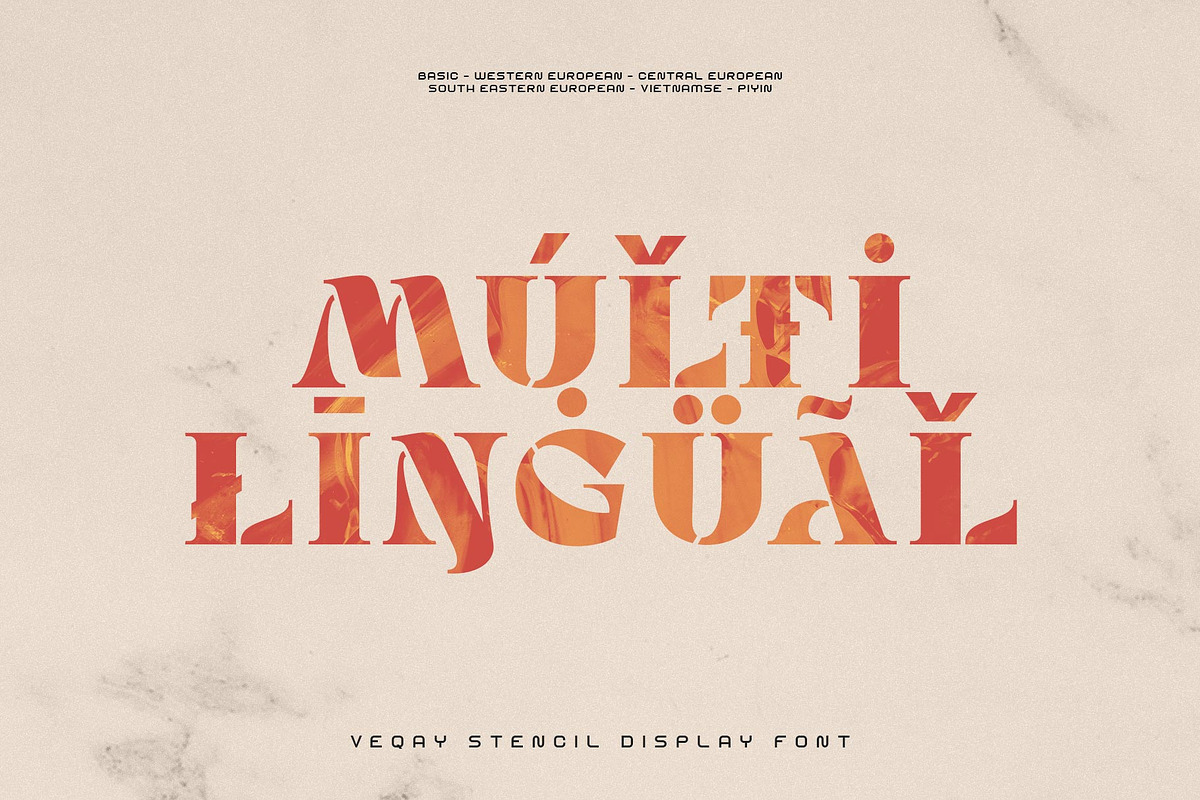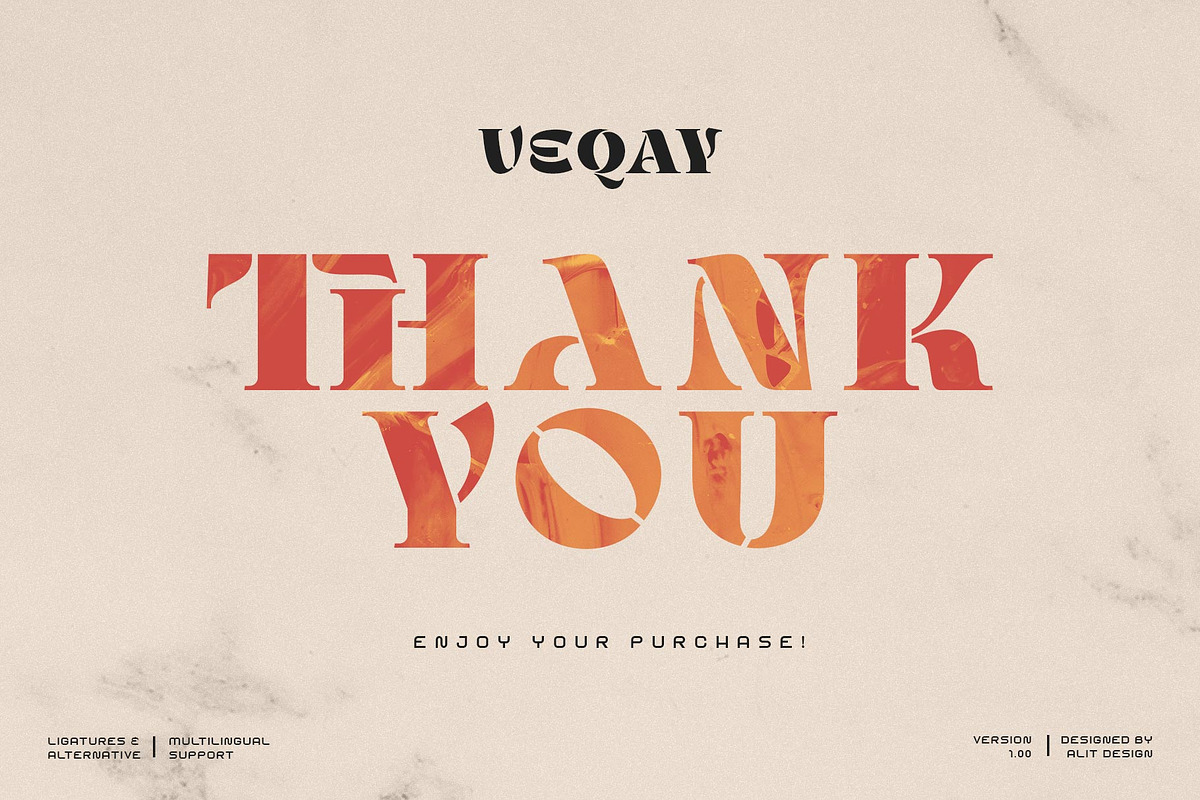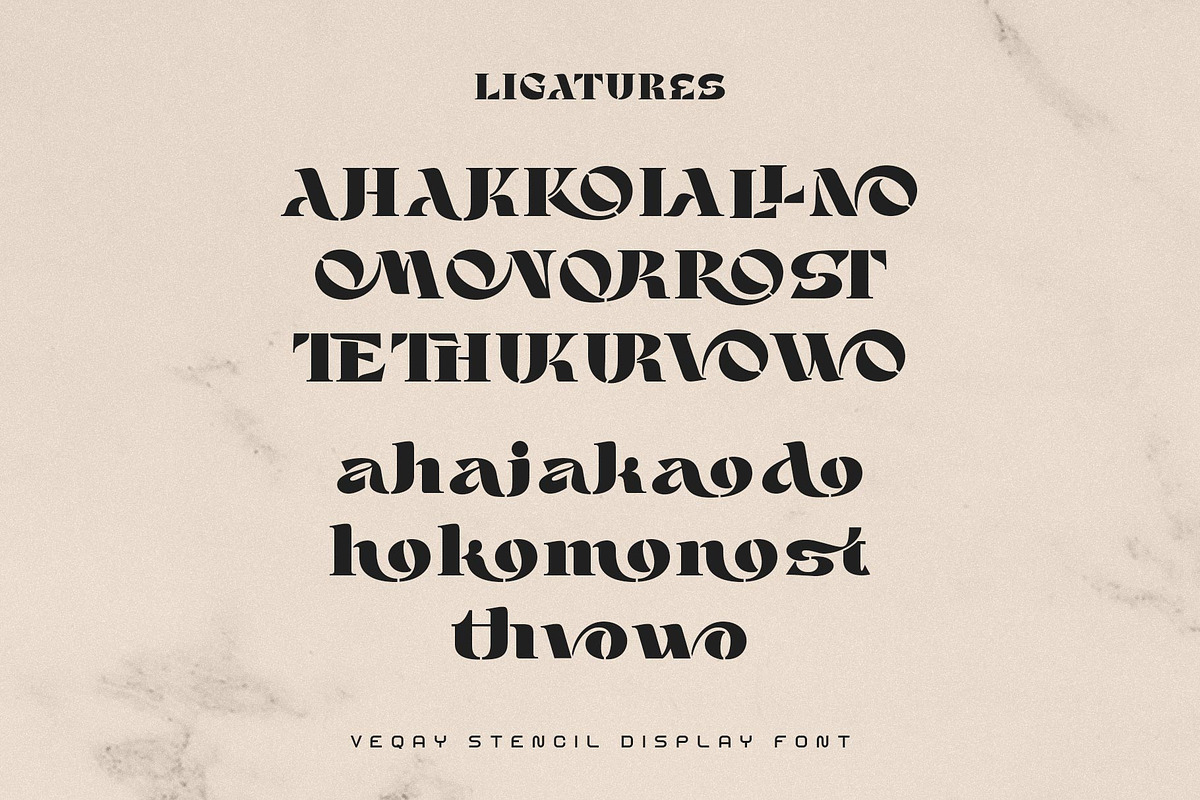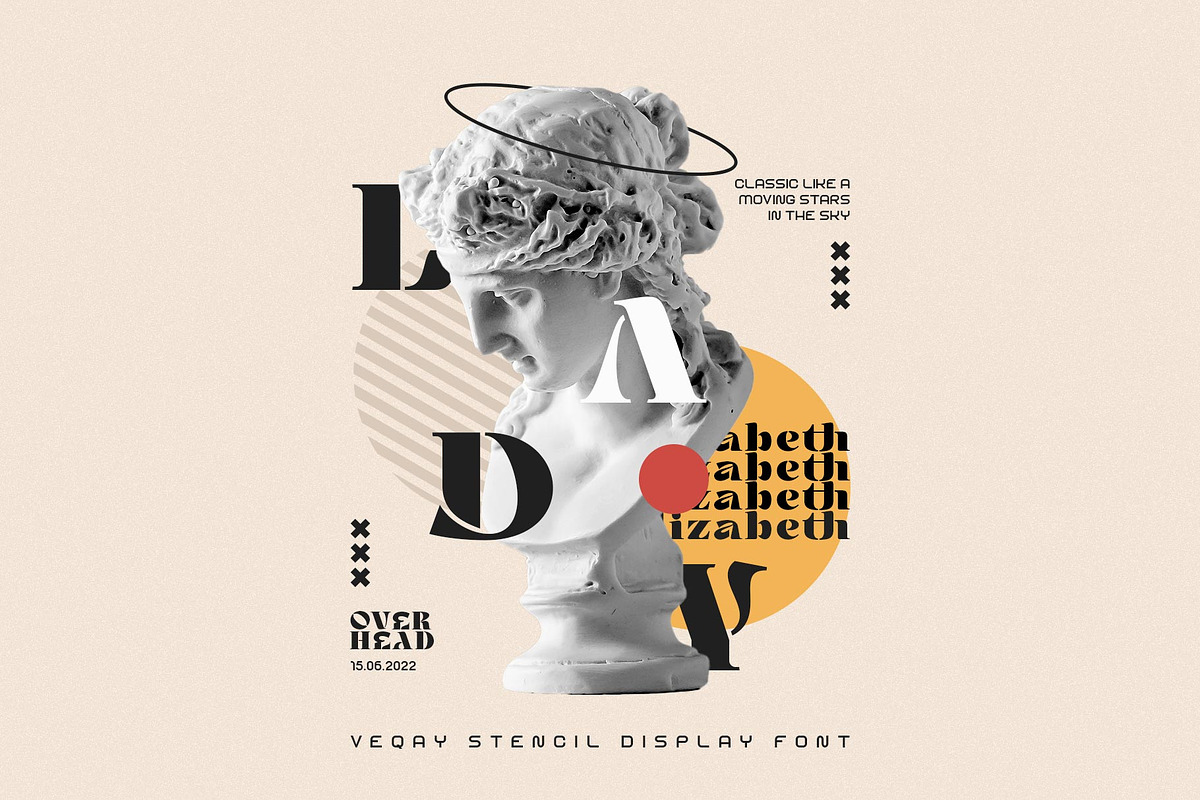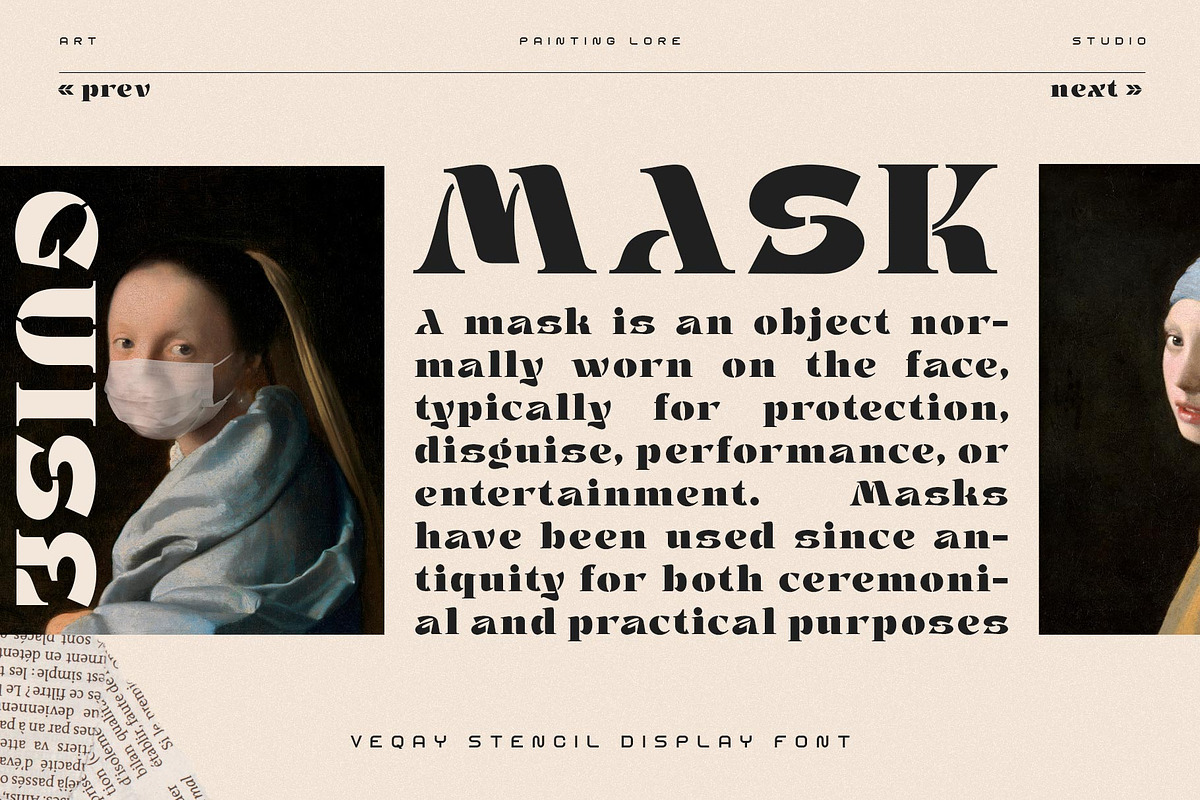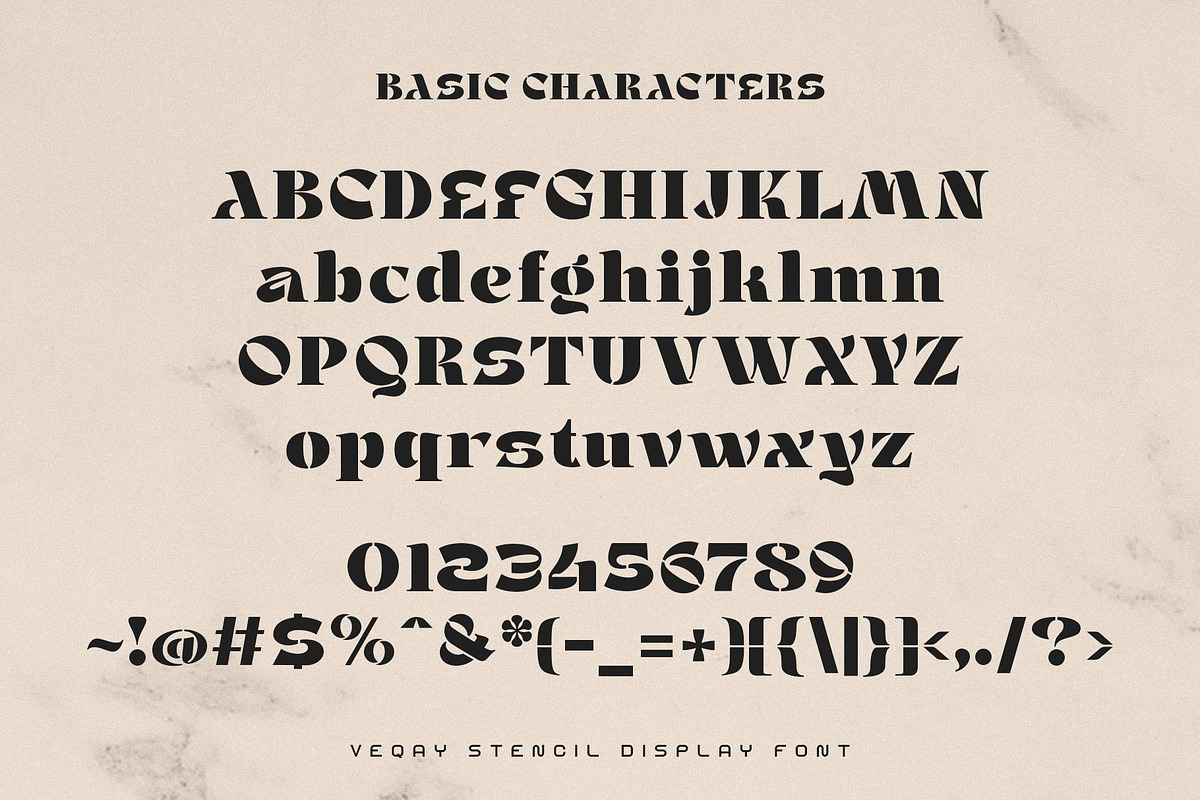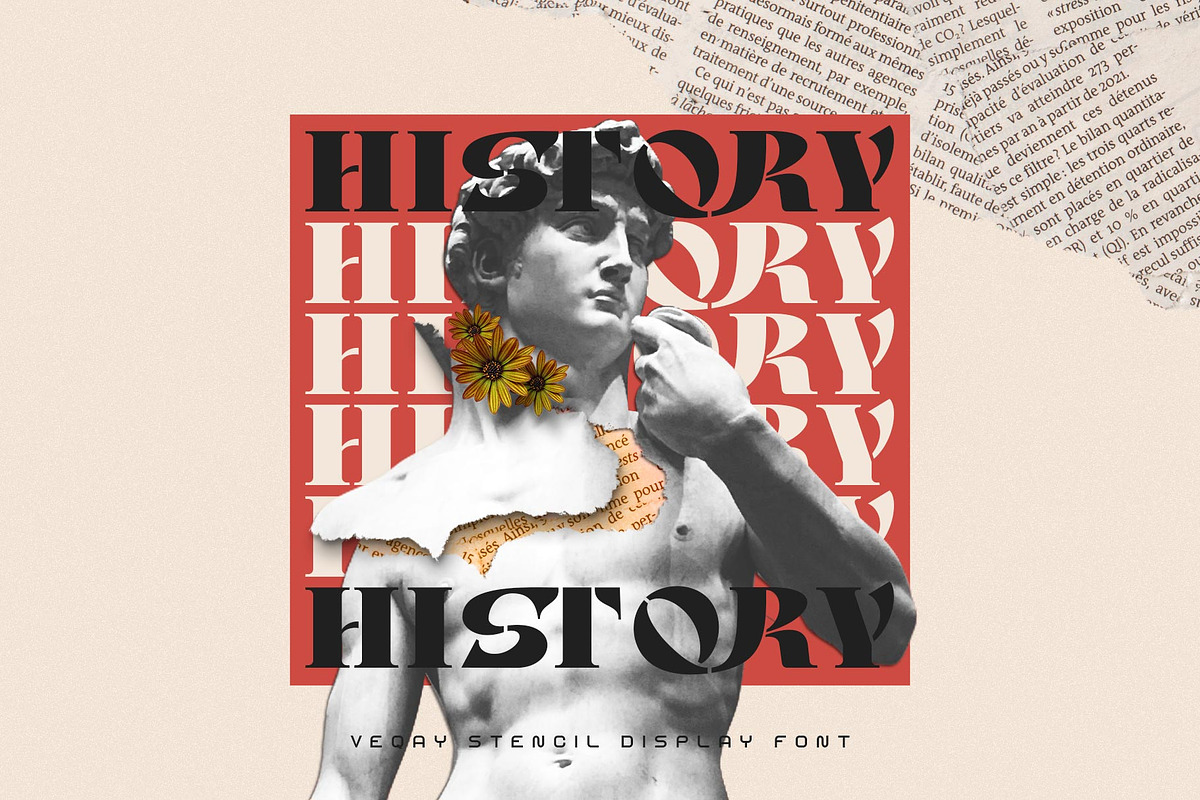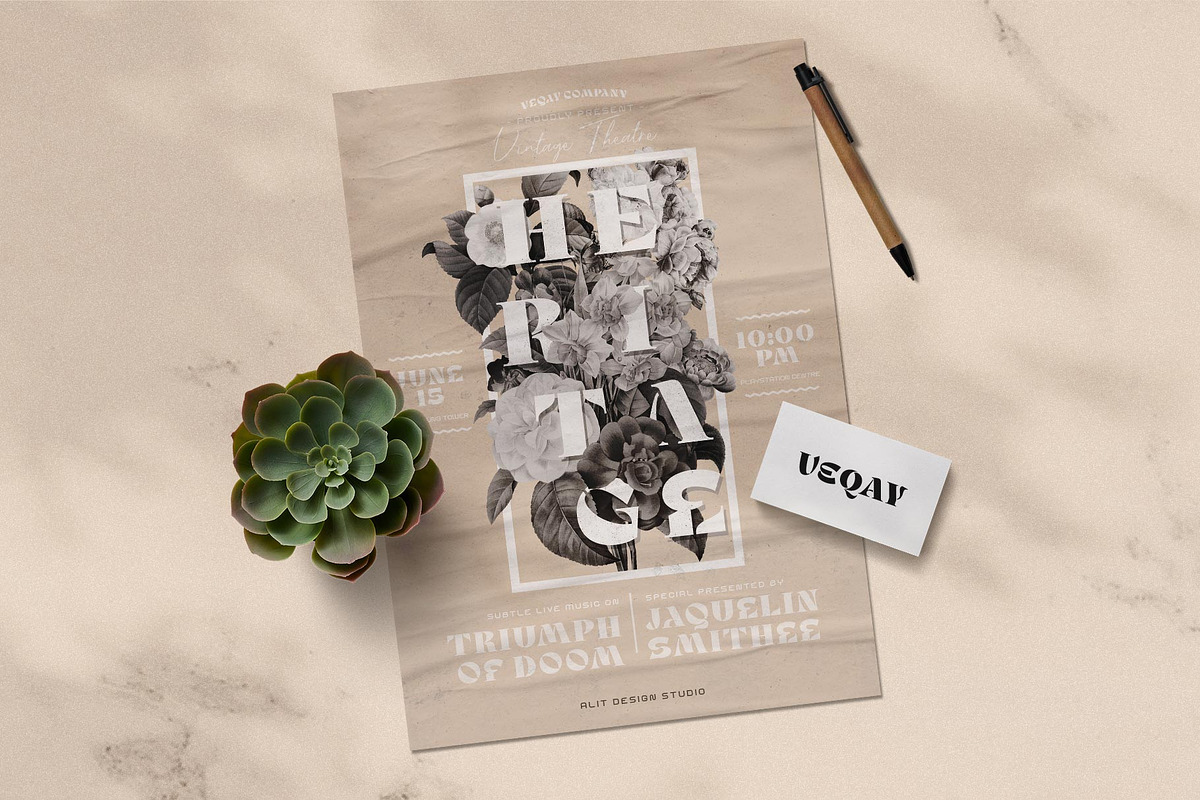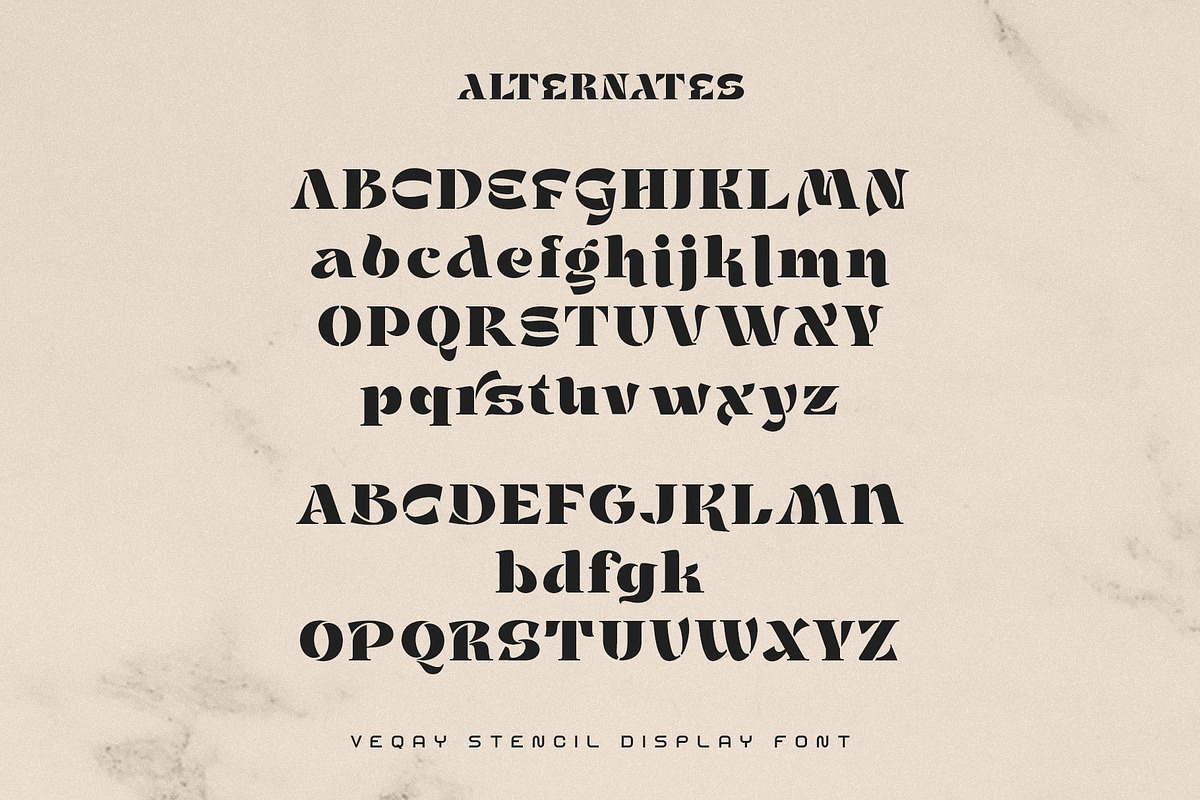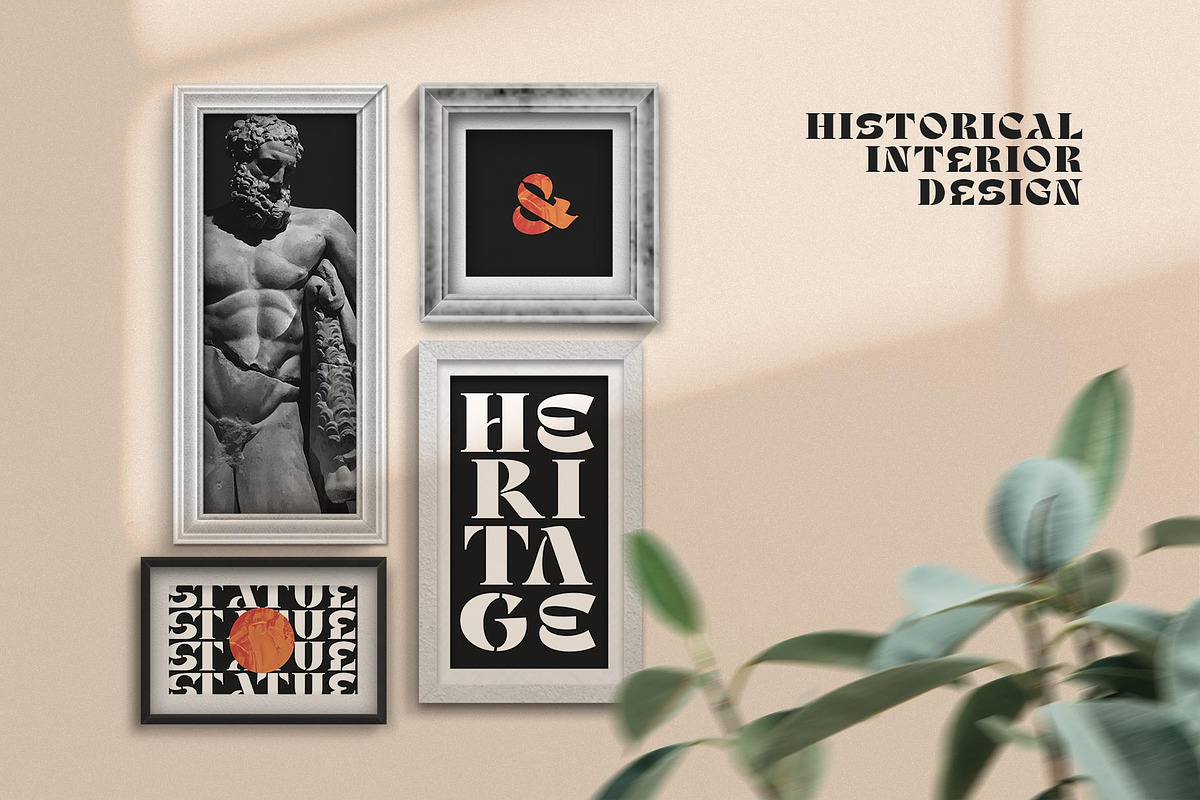
VEQAY Typeface
Introducing VEQAY Typeface
The VEQAY stencil display font taking a retro valiant concept and combined with stencil style, this font designed with a unique display characters that makes the design looks charming but also courageous. Veqay stencil display font also provide various alternates and ligatures that will definitely make designs more appealling for the audience.
The "VEQAY"contains 582 glyphs with many unique and interesting alternative options.
Language Support : Latin, Basic, Western European, Central European, South European,Vietnamese.